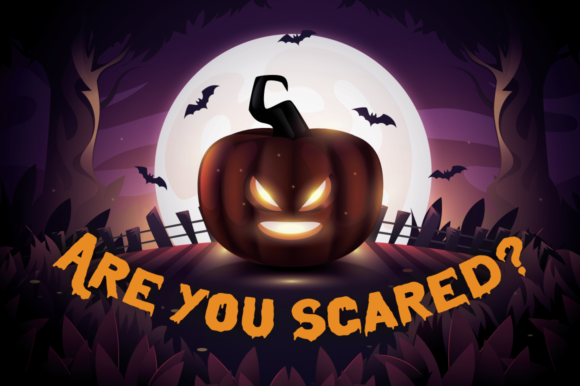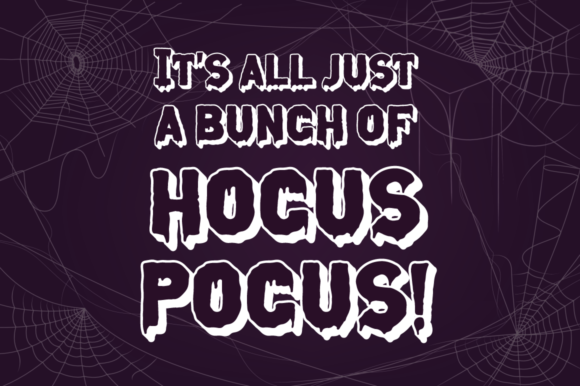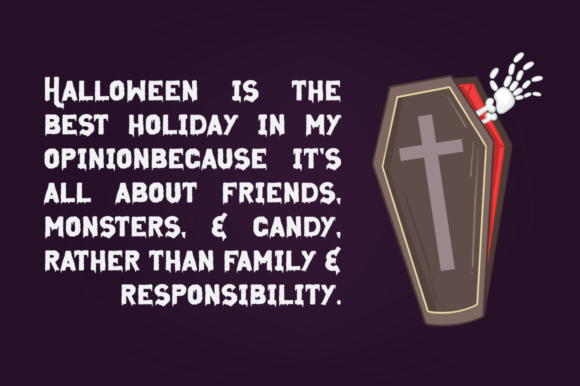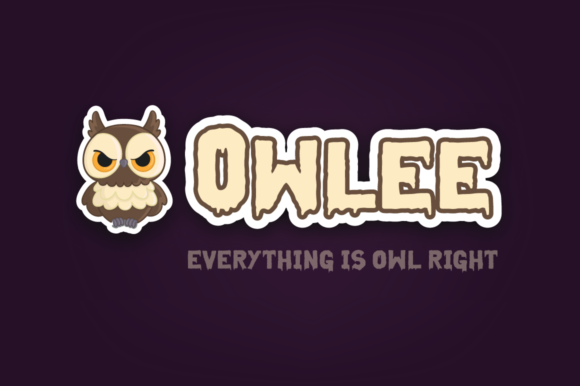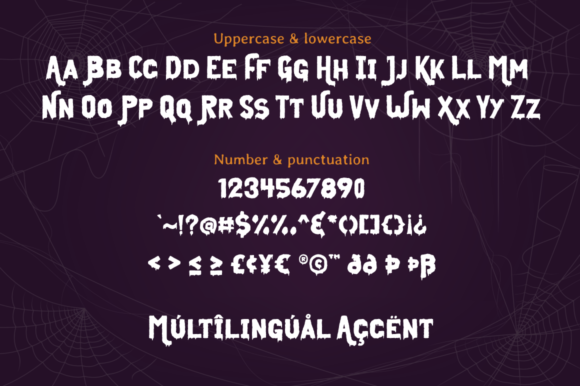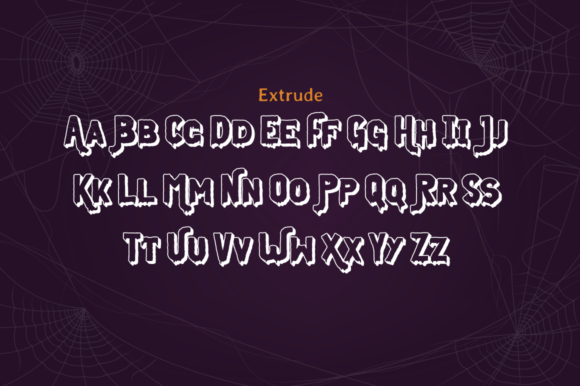
Introduction to Midnight Union Font
As a designer, there’s nothing quite like the thrill of creating a project that sparks joy and wonder. It was one of those moments when I stumbled upon the Midnight Union Font, and I knew I had to share it with the world. This enchanting display font is a treasure trove of creative possibilities, perfect for designers looking to add a touch of magic to their Halloween-themed projects.
With its thick, bold letters and spooky charm, the Midnight Union Font is an absolute game-changer for any design resource. Its high-quality design makes it an excellent choice for a wide range of creative projects, from eerie invitations to spellbinding posters. And the best part? It’s available for free download, complete with a transparent background, making it incredibly versatile.
Whether you’re a seasoned designer or just starting out, the Midnight Union Font is an invaluable resource that will help you bring your creative vision to life. So why wait? Dive into the world of Midnight Union Font and unlock your full creative potential.
Key Features of Midnight Union Font
- Includes a range of characters, including uppercase and lowercase letters, numbers, and punctuation marks, making it a versatile design resource.
- Perfect for use in graphic design, digital art, and other creative projects where a modern and sleek font is required.
Honest Review: Midnight Union Font
I recently stumbled upon the Midnight Union Font while searching for a design resource for a creative project. At first glance, I was impressed by its sleek and modern aesthetic.
Here are a few things that work well with this font: ✨
- Sleek and modern design that can easily be used for a variety of creative projects
- High quality** characters** that are crisp and clear
- Transparent background** option, which makes it easy to overlay on top of other elements
- Limited character set**, which may not be ideal for complex projects
- No bold or italic variations**, which can make it difficult to add emphasis to certain text
Overall, I’m impressed with the Midnight Union Font. While it may have some limitations, its sleek design and high quality characters make it a great option for creative projects that require a modern aesthetic. And the best part? It’s free to download, making it an excellent resource for designers on a budget.
The Midnight Union Font is a high-quality design resource that offers a unique and stylish touch to any creative project. This font features a transparent background, making it ideal for use in various design applications.
Getting the Most Out of the Font
Here are some tips for getting the most out of the Midnight Union Font:
- Use it for headings and titles to add a touch of elegance to your design.
- Combine it with other fonts to create a unique and stylish typography.
- Use it as a background element to add texture and interest to your design.
The Midnight Union Font is ideal for use in various design applications, including:
- Brand identities and logos